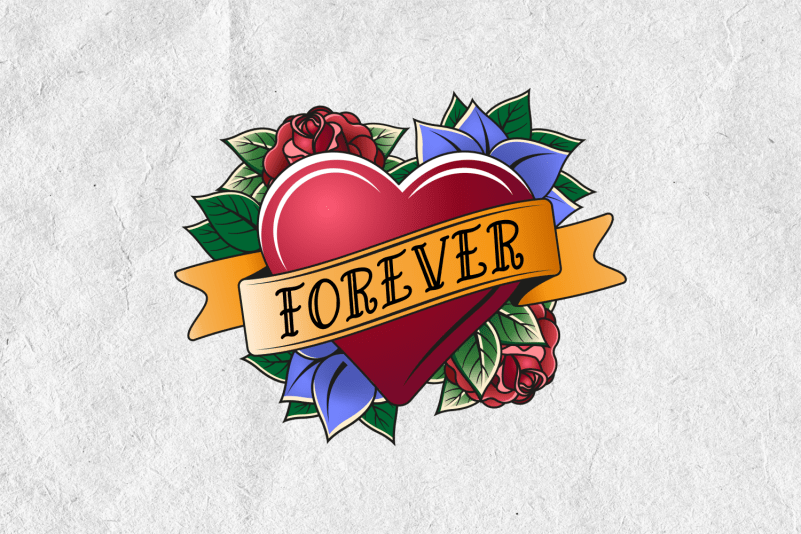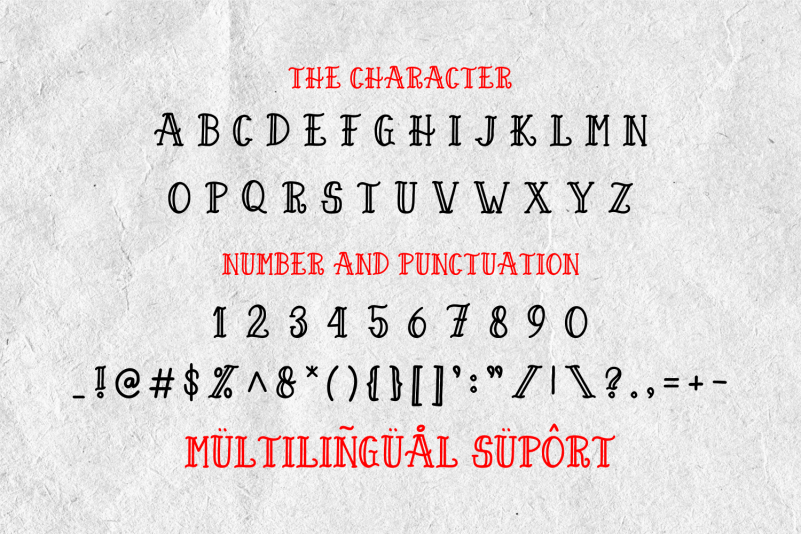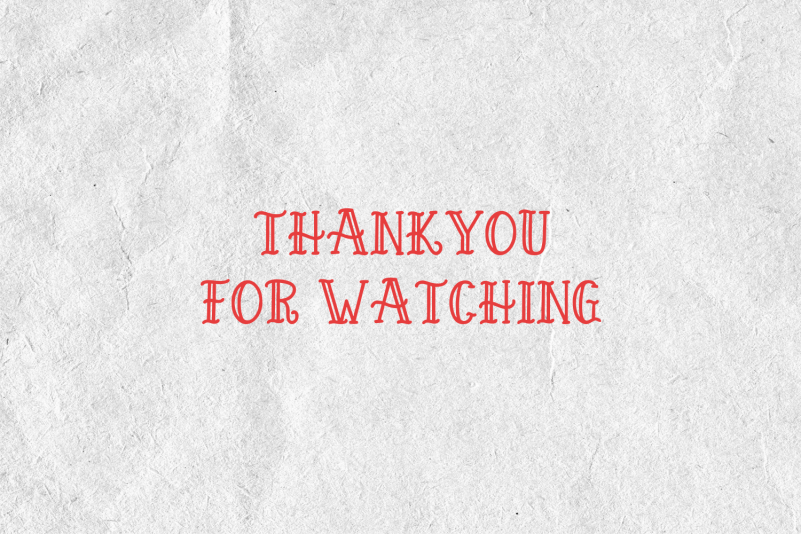
Tattoo God Font
Tattoo God Display Font is an old-school display tattoo font. It’s perfect for product packaging, branding project, magazine, social media, wedding designs, or just used to express words above the background.